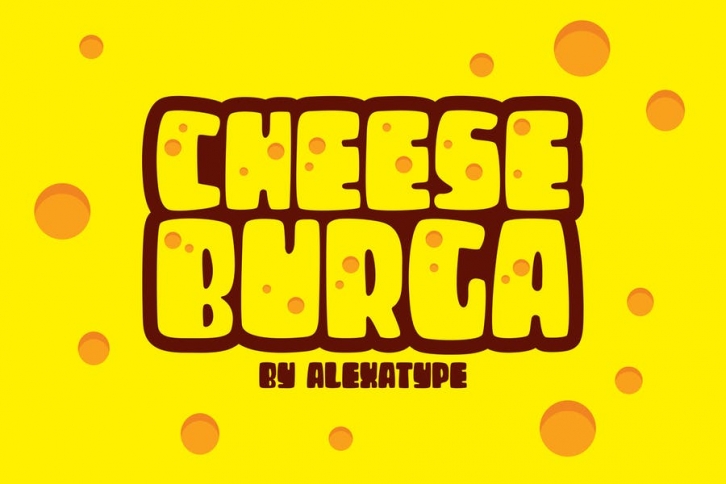
CHEESEBURGA - Chubby Cute Font Download
CHEESEBURGA - Chubby Cute Font
An all caps font with multilingual option, that suit perfectly to your children scope projects. Games, poster, movie title, fast food menu, magazine, and so on.